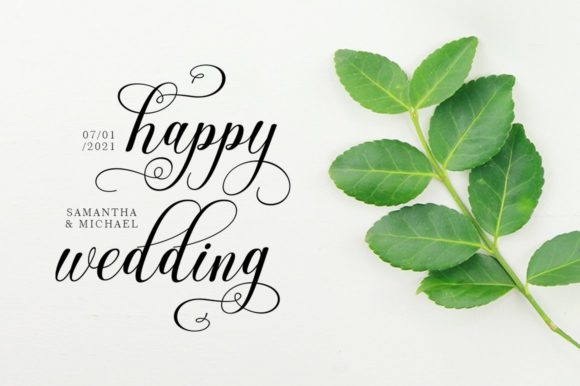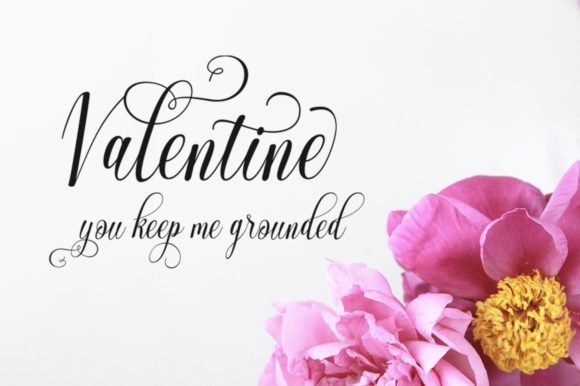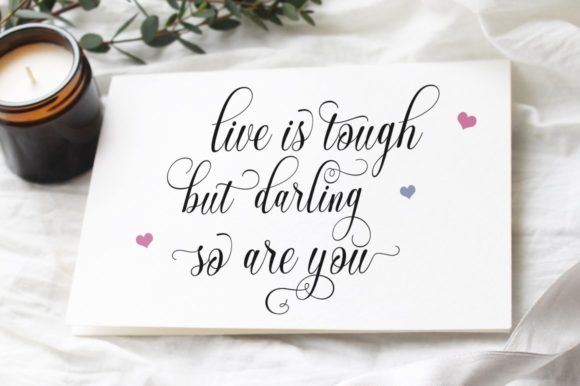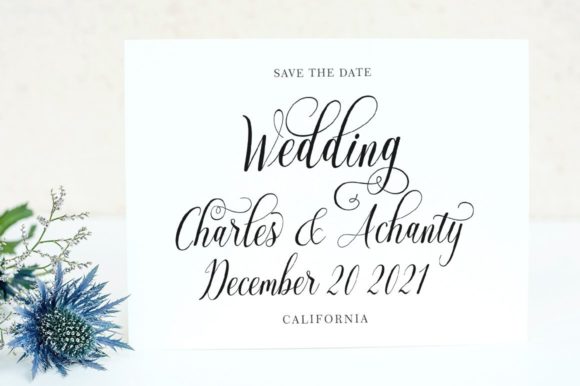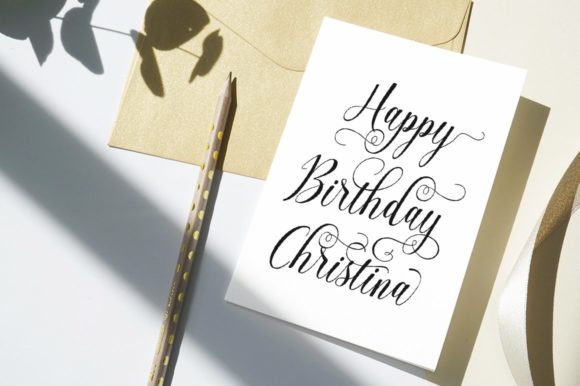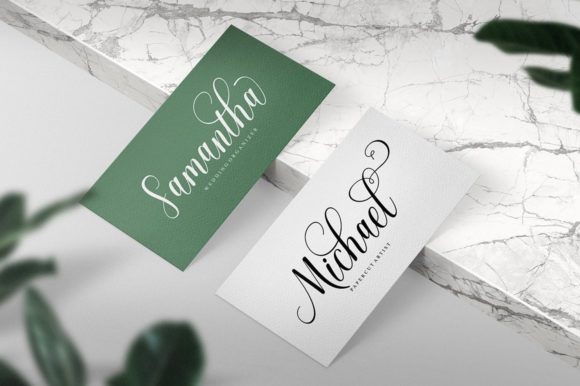
Introduction to Perchaya Script Font Font
Fonts play a crucial role in design, and the Perchaya Script Font font is a typeface that brings both character and versatility to any project. Whether you’re working on a branding project, a website, or a print design, the Perchaya Script Font font offers a unique style that can elevate your work.
Perchaya Script is an enchanting handwritten font.
This versatile script font has a wide spectrum of applications ranging from greeting cards to headlines Perchaya Script is PUA encoded which means you can access all of the glyphs and swashes with ease.
Key Features of Perchaya Script Font Font
Why Choose Perchaya Script Font Font?
The Perchaya Script Font font is more than just a typeface – it’s a design tool that helps you communicate your message with style and clarity. Its unique character set and versatile design make it suitable for a wide range of applications, from elegant invitations to bold headlines.
With its carefully crafted letterforms and balanced proportions, the Perchaya Script Font font ensures readability and visual appeal across all mediums.
What makes Perchaya Script Font font special?
The Perchaya Script Font font stands out with its unique design, exceptional readability, and versatility across various design applications.